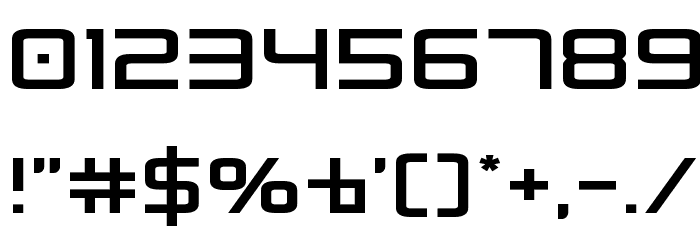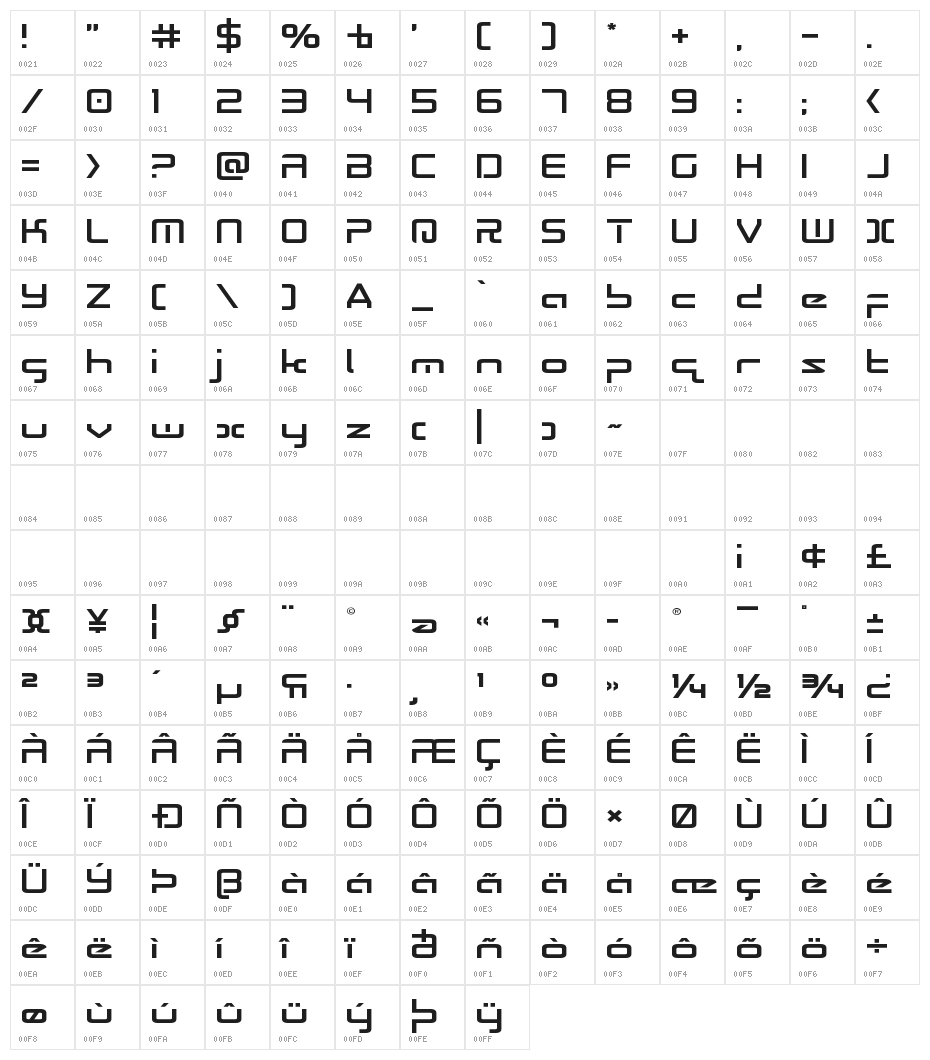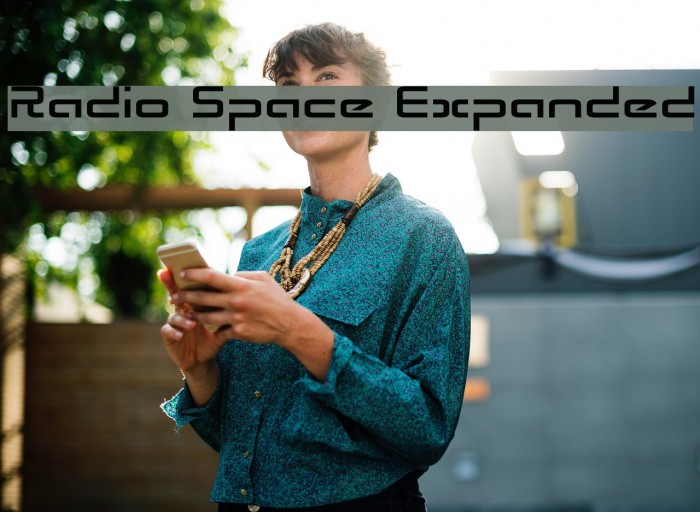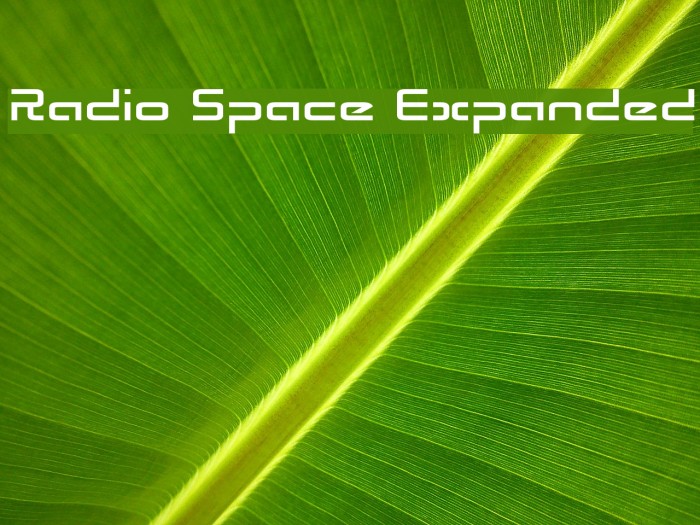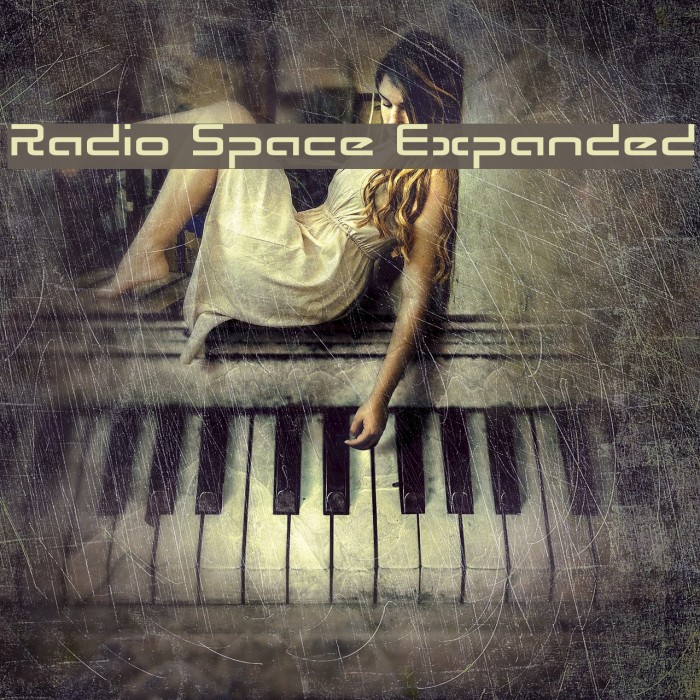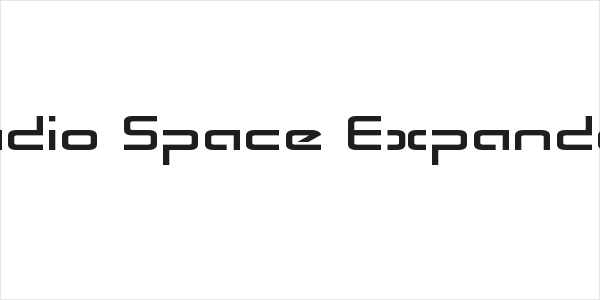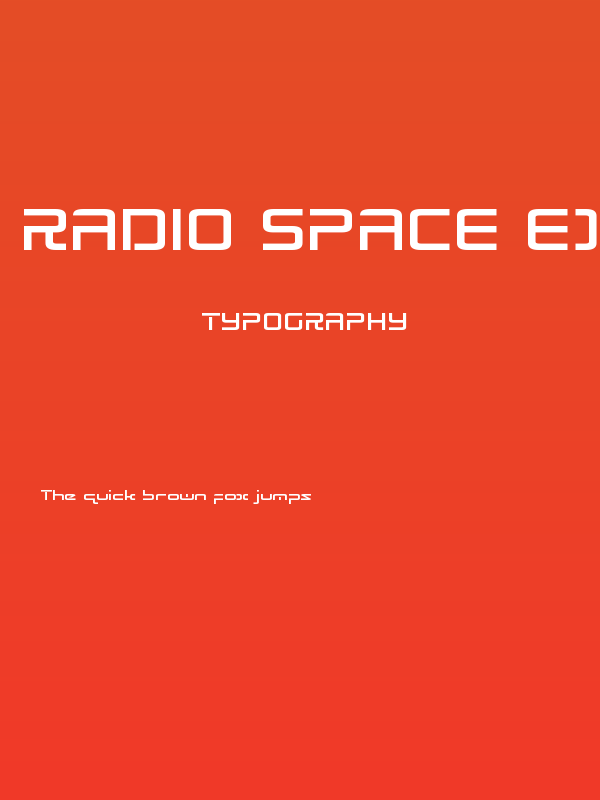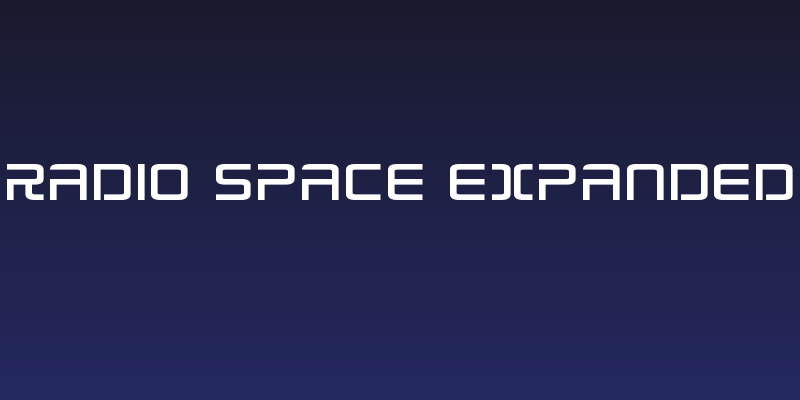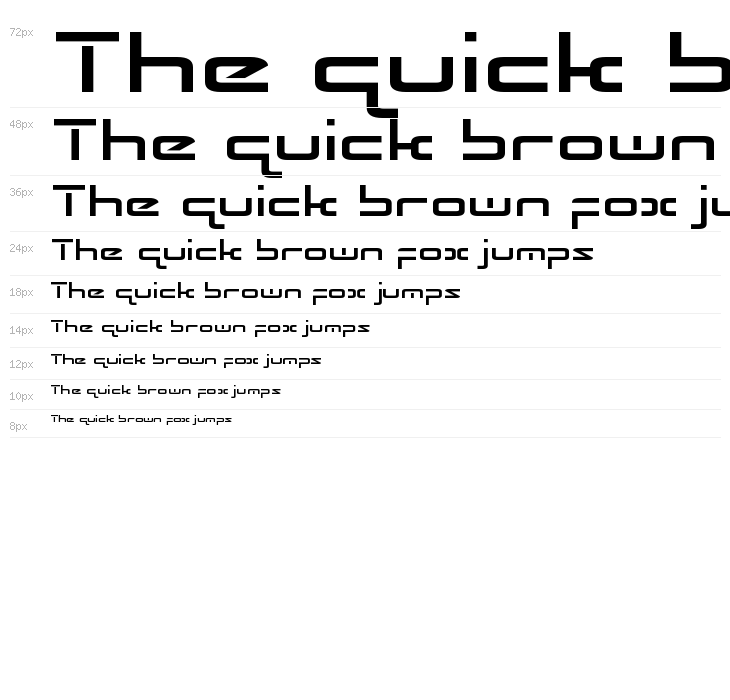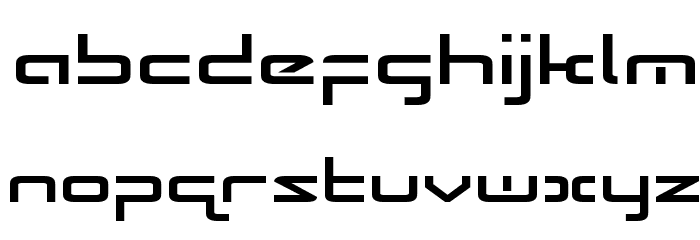
Radio Space Expanded Font
Radio Space Expanded Description
This font features a futuristic and geometric design, characterized by its clean lines and expanded letterforms. The uppercase and lowercase letters maintain a consistent style, with rounded edges and a uniform stroke width that gives it a modern and sleek appearance. The numerals and special characters are designed to complement the alphabet, maintaining the same futuristic aesthetic. The overall look is both technical and stylish, making it suitable for projects that require a contemporary and innovative feel.
| Proposed Projects | Ideal for technology branding, sci-fi themed designs, modern advertising, and digital interfaces. |